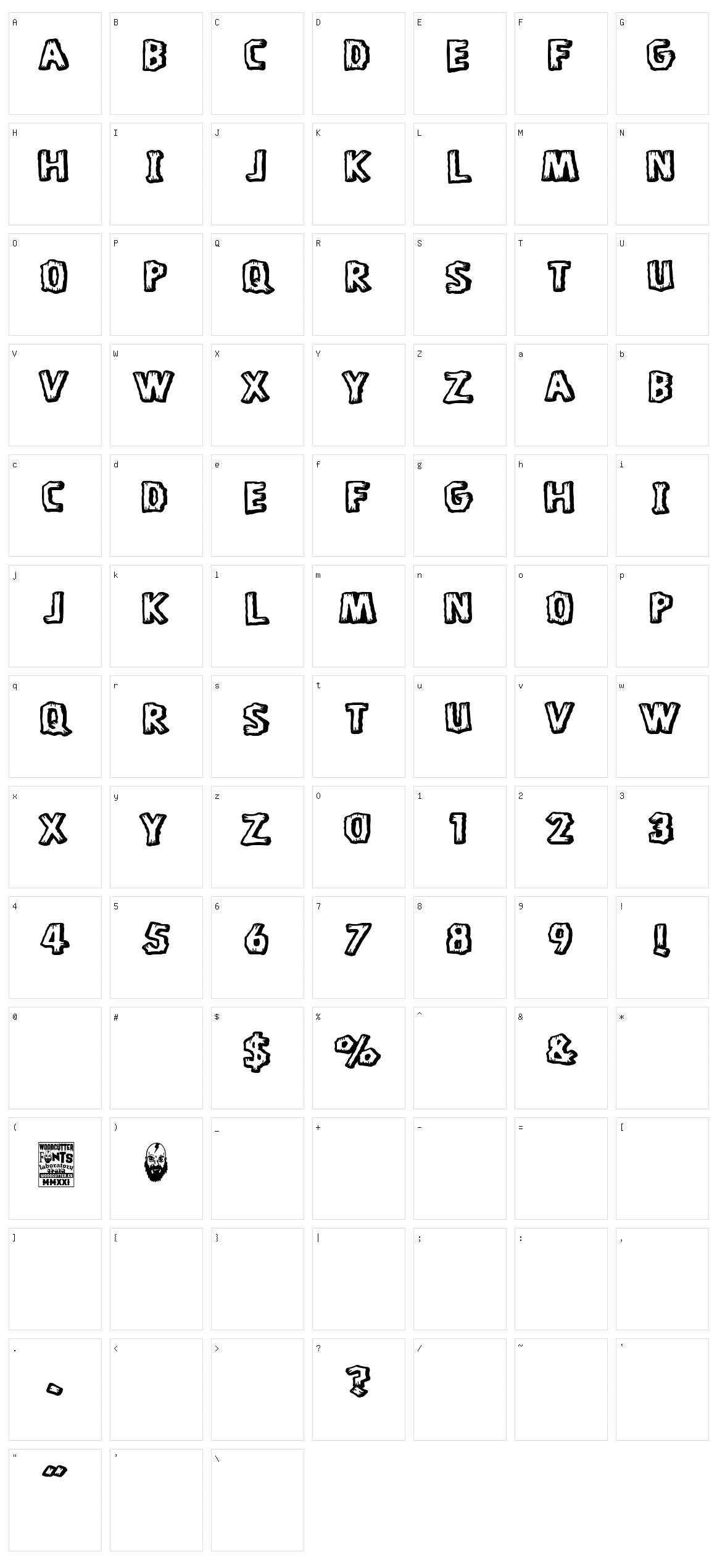
The free font Tiki Tiki Club is carefully designed by Woodcutter, showcasing a thoughtful balance of creativity and usability and falls under the Cartoon font style. When you download the ZIP file, it contains only 116.22 KB of font files, making it lightweight and quick to download. Please review the license details below to understand permitted usage and distribution rights. If license information is not available, we recommend using this font for personal projects only or contacting the author directly for commercial usage permissions.